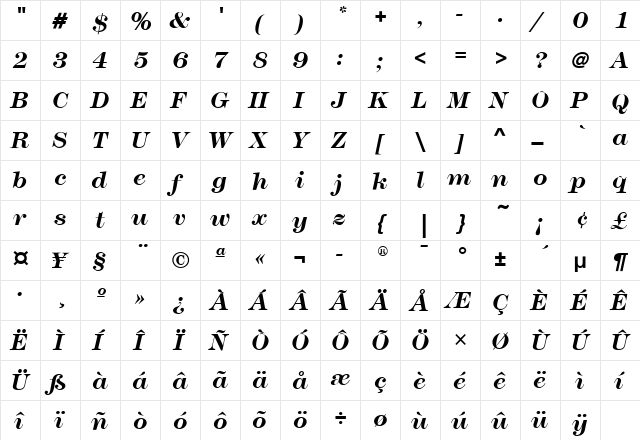
ModernTwoSixtnITC Bold Italic Font Preview
Design Context for ModernTwoSixtnITC Typeface
ModernTwoSixtnITC takes a measured approach to typography — its balanced proportions and neutral character make it a reliable workhorse for both digital and print work. The slanted form adds forward momentum and visual energy. Its bold stroke weight gives it real presence on the page.